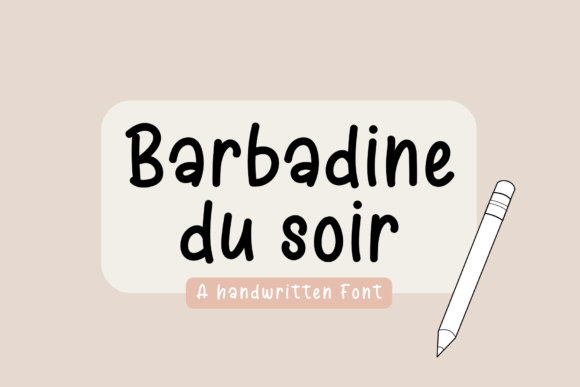
Prepare your writing tools for an adventure with Barbadine Du Soir, the enchanting handwritten font that brings your words to life. Dive into a world of storytelling possibilities, where every letter dances across the page with grace and fluidity.
Crafted by the talented Cotton White Studio, Barbadine Du Soir is the perfect companion for your digital notes, planners, and logos. Its charming script adds a touch of whimsy to any web design, making your creations stand out from the crowd.
Imagine the joy of filling your notebooks and journals with the flowing lines of Barbadine Du Soir. Its versatility extends to labels, blogs, and quotes, adding a personal touch to every message. Picture your greeting cards adorned with heartfelt sentiments, written in a font that whispers your love and care.
Let Barbadine Du Soir inspire your imagination as you create designs for tea towels, apparel, pillows, and mugs. Its playful spirit will add a touch of delight to any room. Picture books, baby clothing, and posters come alive with characters and stories written in this captivating font.
Barbadine Du Soir is more than just a font; it's an invitation to unleash your creativity. Its handwritten style evokes a sense of warmth and intimacy, making it the perfect choice for any project that requires a touch of the personal. Embrace the magic of Barbadine Du Soir and let your words flow with grace and beauty.